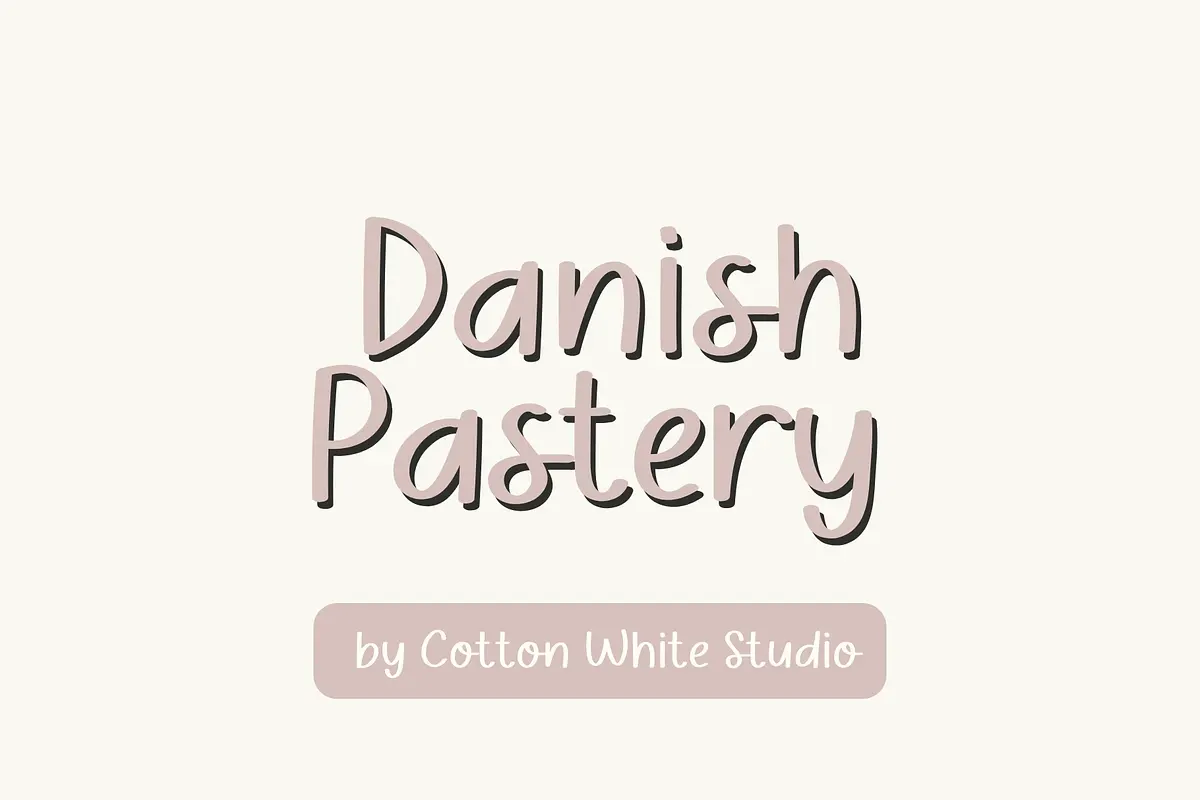
Please note, to use this font for commercial purposes, you must purchase the full version. Danish Pastery is a playful and elegant script font that brings a sweet, whimsical touch to your designs. With its smooth, flowing letterforms and charming character, this font is perfect for creating logos, branding, invitations, and creative projects. Whether you're designing a fun event invitation, a logo for a trendy brand, or a playful greeting card, Danish Pastry adds a warm and inviting feel to your work. Test it out and enjoy free download access for personal use. Experience the delightful charm of Danish Pastry Font Free Download before purchasing the commercial license. Add a touch of sweetness to your designs with Danish Pastery.